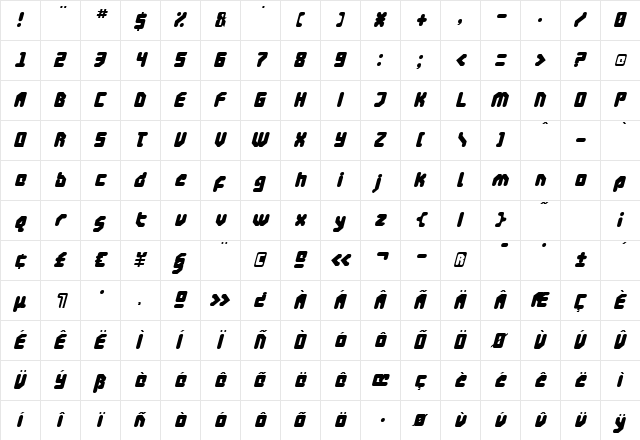
Kanister Oblique
Design Context for Kanister Typeface
Kanister offers clean, dependable letterforms without strong stylistic allegiance, making it a practical choice for designers who need flexibility. Its italic angle brings a sense of urgency and motion to the letterforms.
Pro Tip: Use Kanister for emphasis, pull quotes, and subheadings where its slanted energy can add rhythm to the layout.